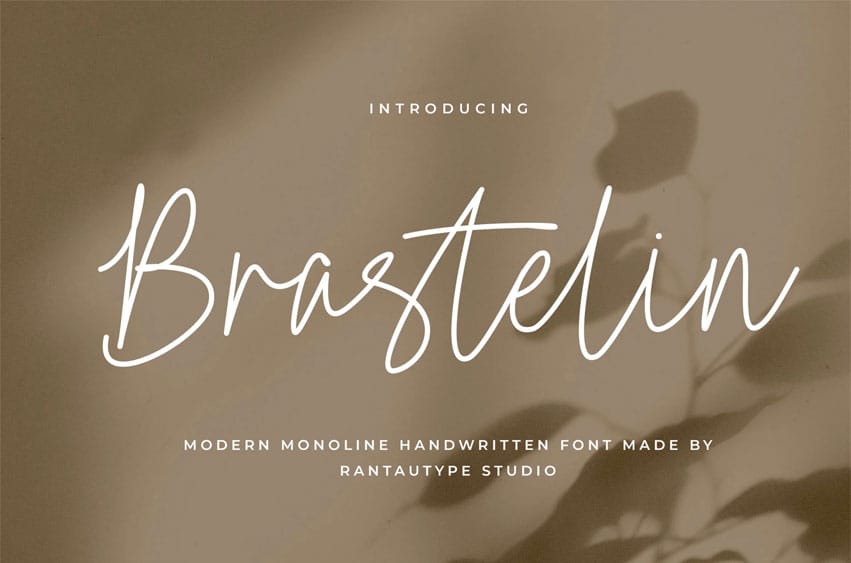
Brastelin Font is a modern Monoline Handwritten Font that is a refined typeface that embraces grace with every elegant stroke. Designed with a consistent line weight, it offers a clean and sophisticated aesthetic.
Brastelin is a perfectly choice for any creative endeavor, creating, modern, lifestyle design such as logotype, title, cover, branding, invitations, wedding designs, display and magazine, social media posts, advertisements, printed quotes, product packaging, corporate brand, product designs, labels, photography, watermarks, special events and any other project with handwritten feel.